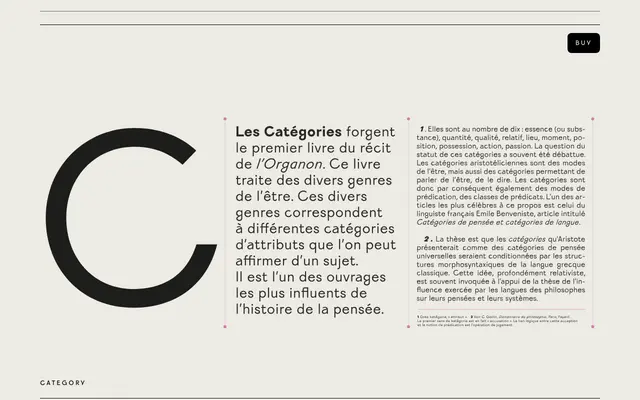
Category
VJ Type · Jérémy Schneider assisted by Liana Korios · 2023
A geometric grotesque from VJ Type with eight weights and a handful of eccentric lowercase letterforms that stop it reading as purely utilitarian.
Designed by Jérémy Schneider with assistance from Liana Korios and released in 2023, Category runs from Regular to Black with matching italics across all four weights. The family is built on low-contrast geometric foundations but introduces deliberate singularities, particularly in the lowercase a, g, j and y, and angled details in certain capitals. It covers over forty Latin-script languages and ships in OTF, WOFF and WOFF2 formats, intended for use across long text, body copy, headlines and identity work.
Category originates from geometric shapes with low contrast, placing it squarely in the geometric grotesque tradition, though deliberate eccentric details in the lowercase a, g, j and y introduce a humanist warmth that keeps it from being purely geometric.